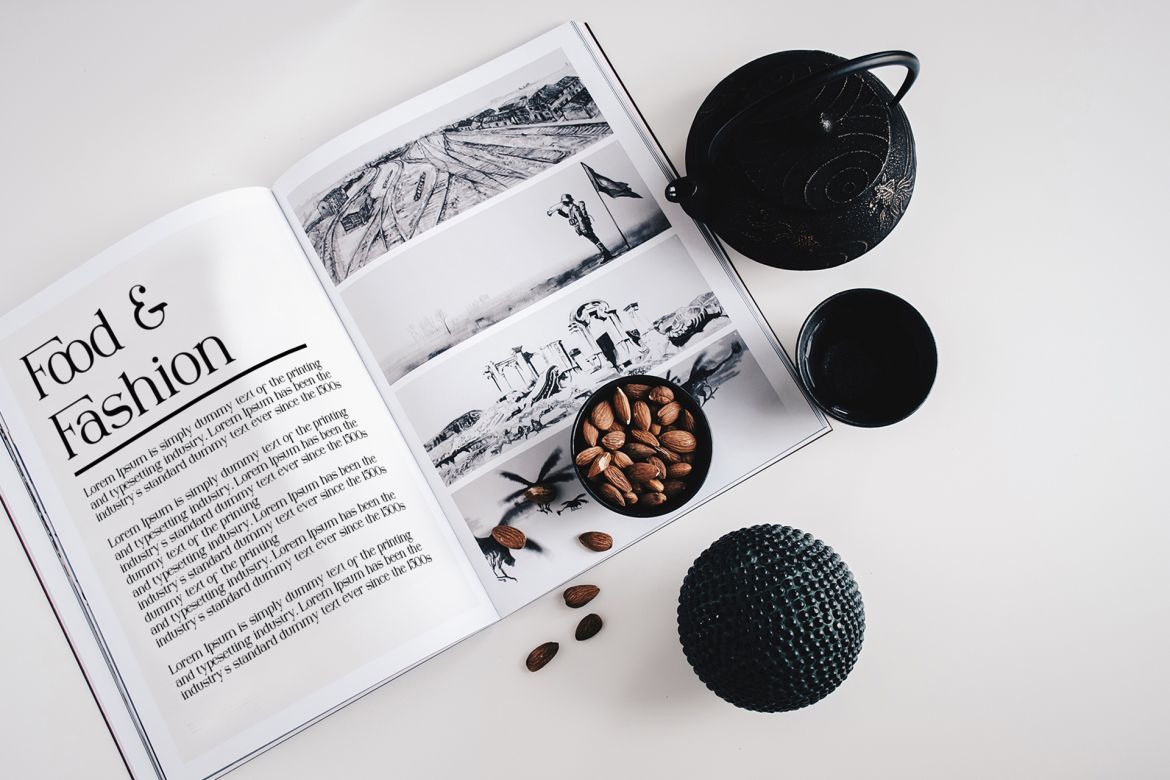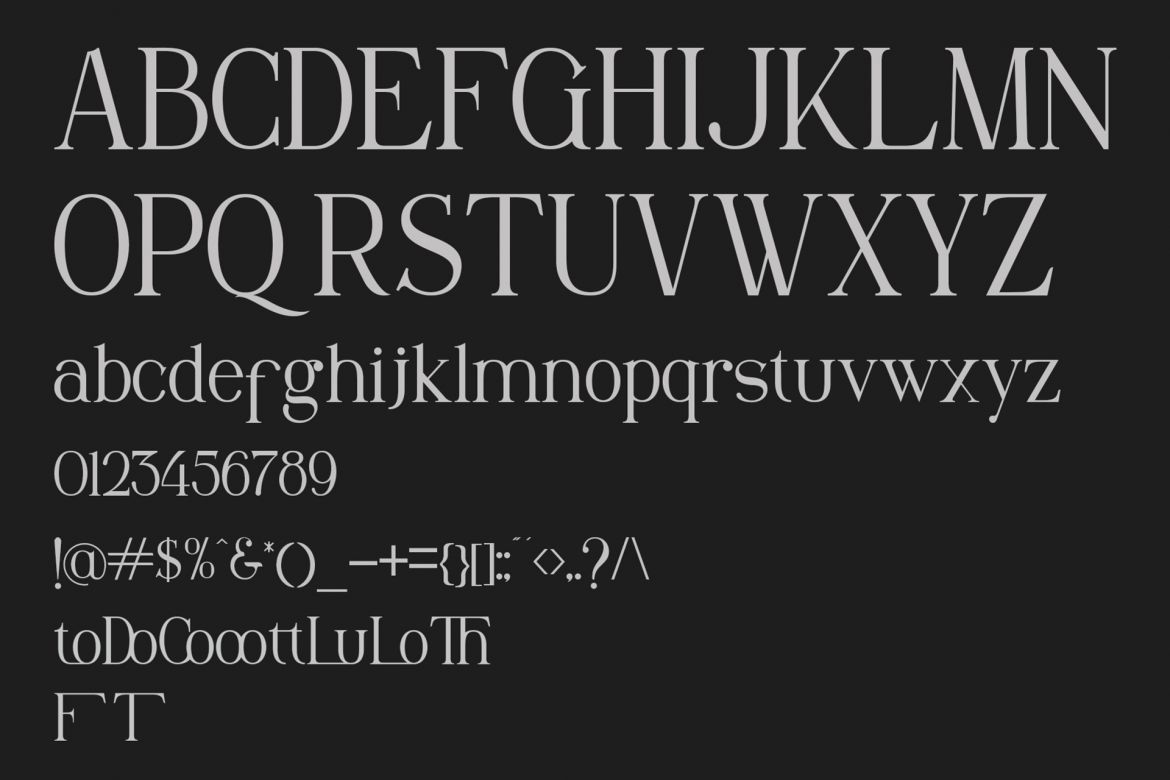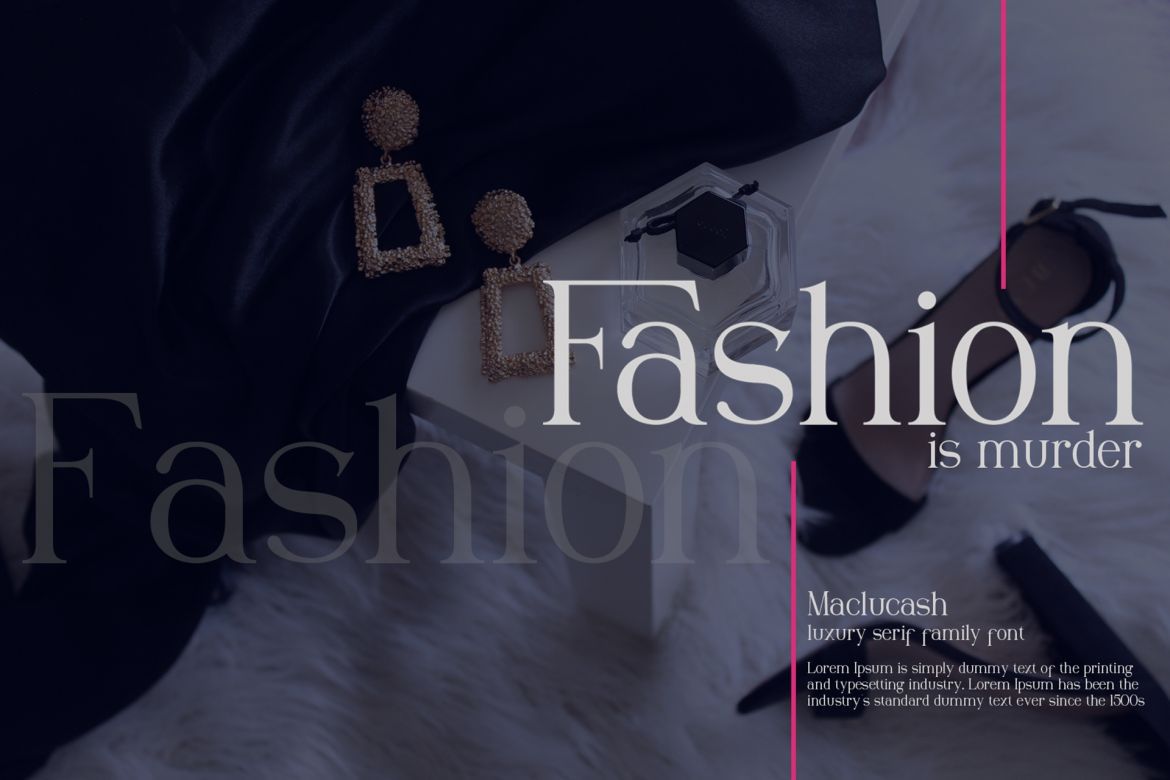
Maclucash Serif Font
-- Elegant / Luxury / Formal --
Maclucash font is a sans font family Inspired by old time poster with a luxury style, we try to make it more elegant and strong so it's can useful for any purpose. it's perfect for you to show your design or product in professional way.
Maclucash font is works great in any branding, logos, magazines, films, poster, flyer, sign board, magazine,etc
• original hand drawn
• perfect to use it to make your design elegant